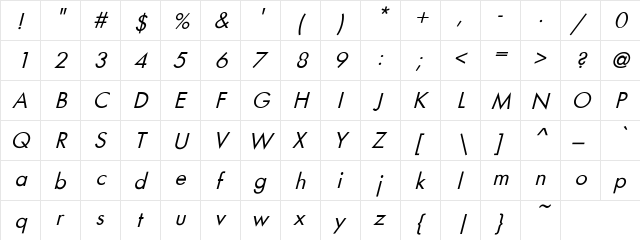
BelmarObl-Norma Regular
Design Context for BelmarObl-Norma Typeface
BelmarObl-Norma offers clean, dependable letterforms without strong stylistic allegiance, making it a practical choice for designers who need flexibility.